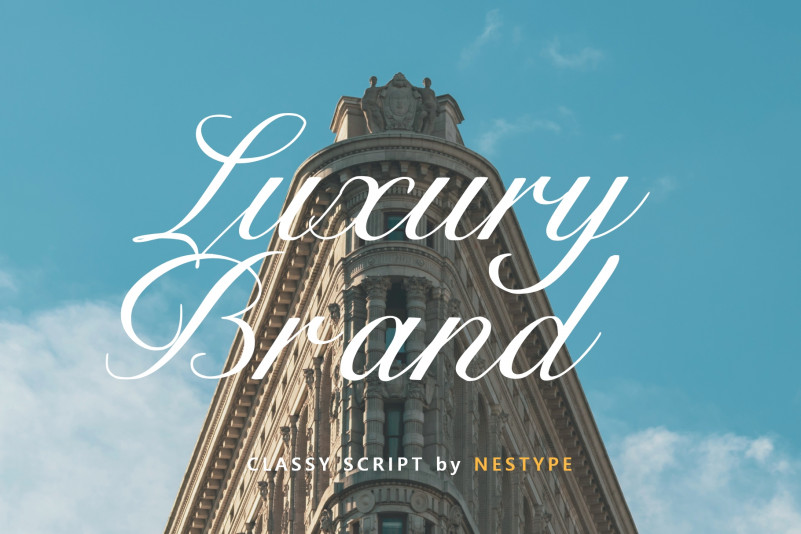
New York Font
New York Script Font is a classic look Script with Upright and Italic options. flexible enough for web and print use and can be used in a wide variety of projects such as stationery, packaging, apparel, wedding stationery, prints, quotes, social media graphics, planners, greeting cards, logos, branding and much more.